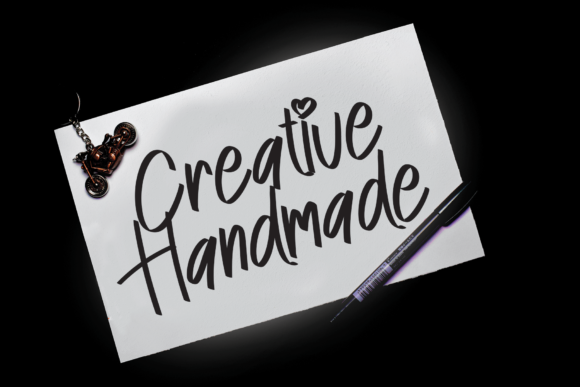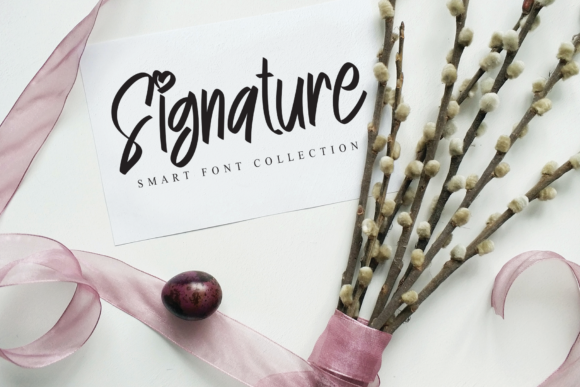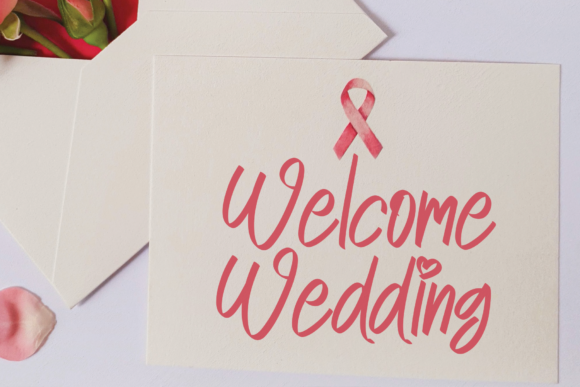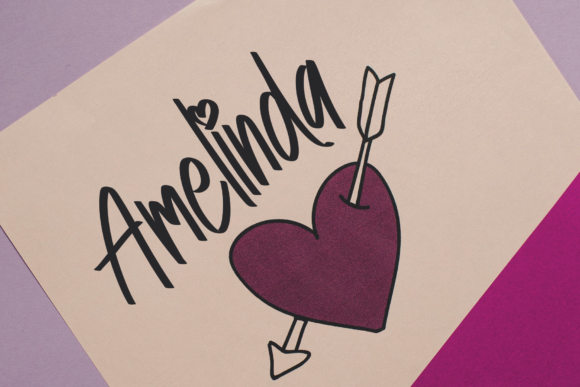
The Perfect Blend of Casual and Friendly: Introducing Brellania Font
As a designer, have you ever stared at a blank canvas, searching for the perfect font to bring your project to life? The struggle is real, but what if you stumbled upon a font that effortlessly adds a dash of personality to your design? For us, that moment came when we discovered the Brellania Font.
This simple, yet charming handwritten font is designed to add a fun and friendly touch to your projects. Whether you’re working on a brand identity, a social media campaign, or a blog post, Brellania Font is the perfect companion to help you convey your message in a relaxed and casual tone. Its adaptability makes it a valuable asset for designers who want to create engaging and approachable content that resonates with their audience.
Brellania Font Key Features
- Unique Characteristics: Brellania Font features a distinctive, cursive script style with elegant flourishes and swashes, making it perfect for adding a touch of sophistication to wedding invitations, certificates, and other formal documents.
- Font Metrics: Brellania Font has a x-height of 650 units, an ascender height of 800 units, and a descender height of 300 units, providing a balanced and harmonious typography experience.
Brellania Font Review
Overall, I was impressed with the Brellania font. It’s a beautiful, elegant script font that works well for various applications, such as wedding invitations, branding, or packaging design. ✨ Here are some of its strengths:
- Legibility: The font is highly legible, making it perfect for long text passages or body content.
- Expressiveness: Brellania conveys a sense of luxury and sophistication, ideal for high-end branding or special occasions.
- Customization: The font is highly customizable, allowing you to adjust its size, color, and style to suit your design needs.
However, like any font, Brellania has its limitations. ⚠️ Here are some potential drawbacks:
- Lack of bold weight: The font is primarily designed for light and regular weights, which can make it challenging to create contrast in certain designs.
- Not ideal for sans-serif contexts: Brellania’s cursive nature can clash with sans-serif fonts, making it essential to pair it with serif or script fonts.
Overall, I think Brellania is a fantastic addition to any designer’s toolkit. While it may not be perfect for every project, its unique charm and versatility make it an excellent choice for a wide range of applications.